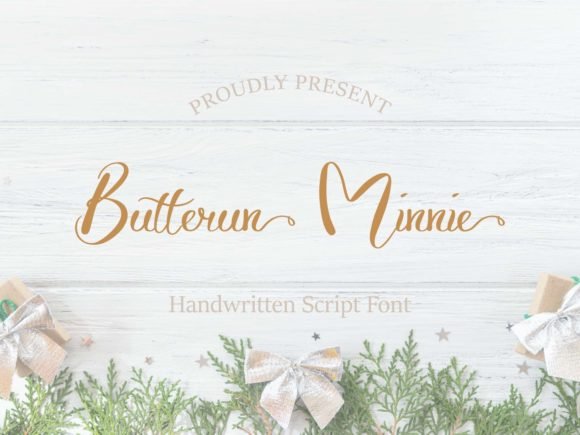
The Perfect Font to Bring Your Creative Ideas to Life
Have you ever been brainstorming a new project, pouring over sketches and ideas, only to feel like something is missing? You’ve got the concept, the design, and the passion – but the one thing that’s holding it back is a font that truly captures its essence. That’s where the Butterun Minnie Font comes in – a delightful script font that adds a touch of whimsy and charm to any design.
This lovely font is perfect for designers looking to add a playful twist to their work. With its charming, dancing characters, the Butterun Minnie Font is sure to bring a smile to your face and a spark to your creativity. Whether you’re designing a logo, a children’s book, or a wedding invitation, this font is a valuable addition to your toolkit.
Key Features of Butterun Minnie Font
- Font Style: A handwritten, cursive font with a playful and whimsical feel.
- Font Size: The font is available in a single weight, making it suitable for a wide range of applications.
- Unique Characteristics: The font features a distinctive, flowing script with intricate details and a touch of elegance.
Butterun Minnie Font Review
I recently had the chance to work with the Butterun Minnie font, and I’m excited to share my honest thoughts about this quirky, charming font. ✨
- Unique aesthetic: Butterun Minnie has a playful, hand-drawn feel that’s sure to grab attention.
- Good legibility: Despite its whimsical appearance, the font is surprisingly easy to read, making it a great choice for body text.
- Extensive character set: Butterun Minnie includes a wide range of characters, including punctuation and symbols.
- Not ideal for large blocks of text: Due to its playful, handwritten nature, Butterun Minnie can become overwhelming when used extensively.
- May not be suitable for formal designs: The font’s casual, childlike feel may not be the best fit for formal or professional projects.
- Some character inconsistencies: I noticed a few instances where characters looked slightly off or inconsistent in terms of style and spacing.
Overall, I think Butterun Minnie is a great choice for projects where you want to add a touch of whimsy and personality. Just be mindful of its limitations, and use it thoughtfully to avoid overwhelming your design.
Butterun Minnie Font Practical Application Guide
Here are a few tips for getting the most out of the Butterun Minnie font:
Use it for whimsical and playful designs, such as children’s book covers or birthday invitations.
Pair it with bold and bright colors to create a fun and energetic look.
Use it to create a sense of nostalgia and retro charm.
The Butterun Minnie font is commonly used for:
Children’s book covers and illustrations.
Birthday and party invitations.
Retro-themed designs and logos.
Alternatives to Butterun Minnie Font
Cinzel
Cinzel is a modern calligraphy font that offers a unique, elegant look. It is suitable for designs that require sophistication and refinement, such as wedding invitations, luxury branding, and high-end packaging. Compared to Butterun Minnie Font, Cinzel has a more formal and traditional feel, whereas Butterun Minnie Font has a more playful and whimsical vibe.
Carolyna Pro is a beautiful script font that exudes a sense of luxury and sophistication. It is ideal for designs that require a touch of elegance, such as branding, packaging, and editorial content. Compared to Butterun Minnie Font, Carolyna Pro has a more refined and polished feel, whereas Butterun Minnie Font has a more casual and approachable tone.
Great Vibes is a modern script font that offers a unique blend of elegance and playfulness. It is suitable for designs that require a touch of sophistication, such as branding, packaging, and advertising. Compared to Butterun Minnie Font, Great Vibes has a more refined and sophisticated feel, whereas Butterun Minnie Font has a more whimsical and carefree vibe.
What is the character set of Butterun Minnie?
Butterun Minnie includes a comprehensive character set, covering Latin, Cyrillic, and Greek alphabets, as well as punctuation, numbers, and special characters. The font also includes support for OpenType features, such as ligatures and stylistic sets.